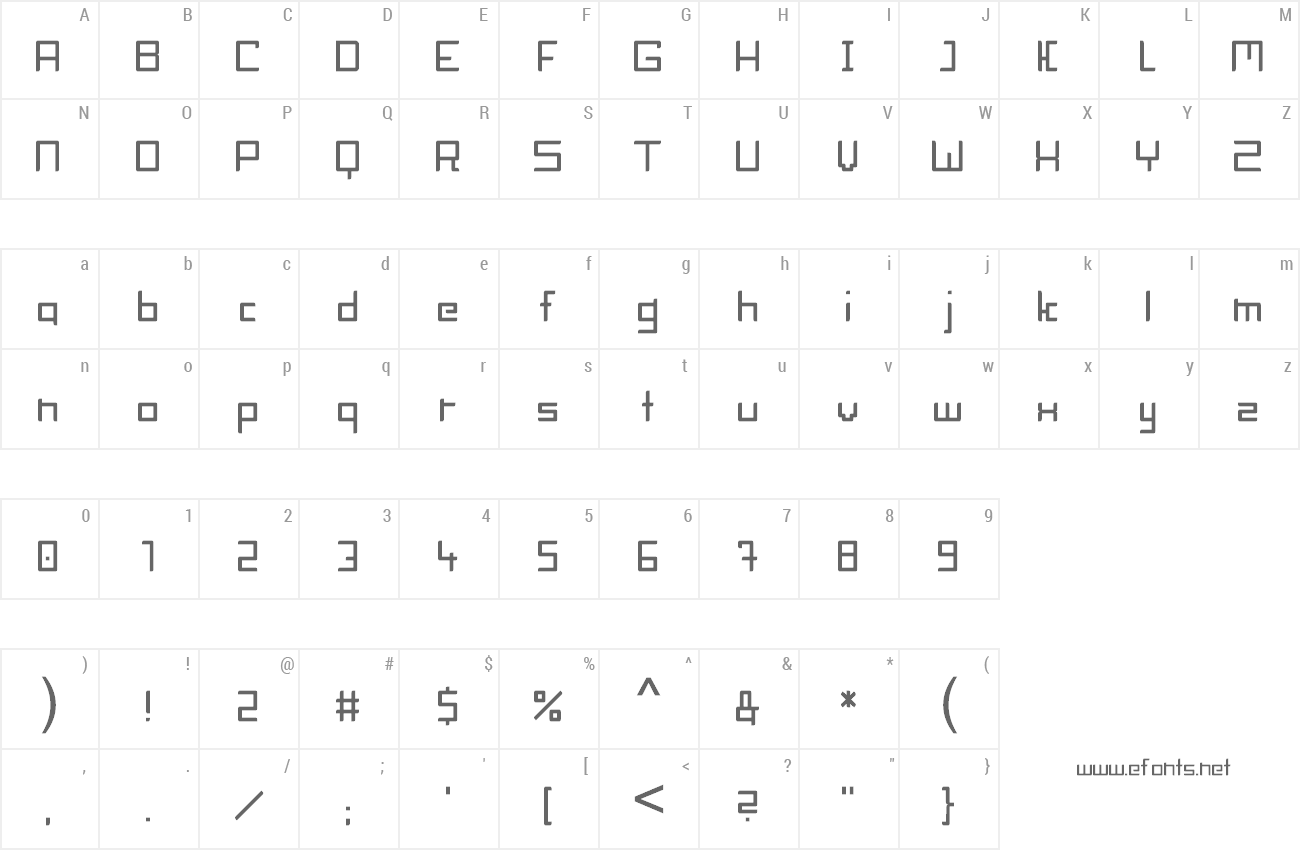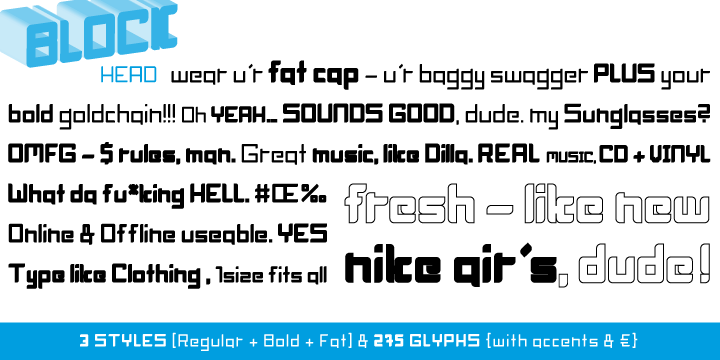
Preview and download BlockHead Font. Created by Manuel Viergutz | Typo Graphic Design in Techno Various styles with Free for personal use license.
Headline Font / Display Font / Deco Font "blockHead" with 3 stlyes (regular, bold, fat) & 275 glyphs inkl. accents & € INFO If you want to use this font for commercial projects, please contact me: manuel.viergutz[at]gmx.de or donate an amount greater-than-or-equal EUR 15 / $ 19 (for commercial licence). I also appreciate it if you send me links /images of your (non)-commercial work featuring this font. |